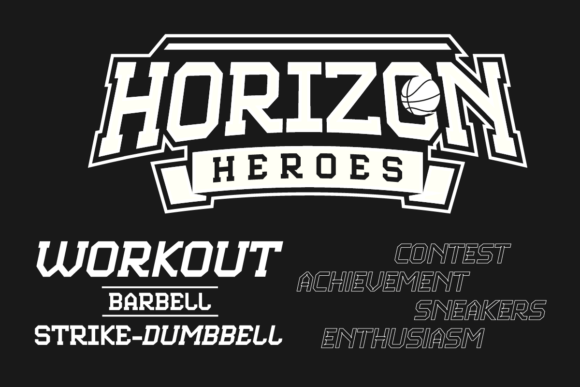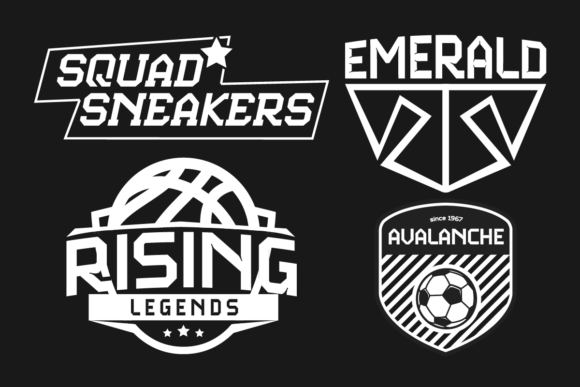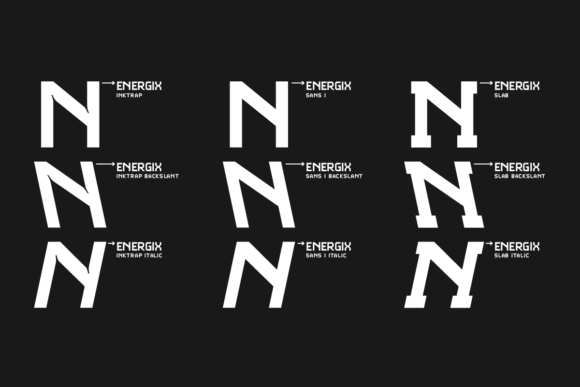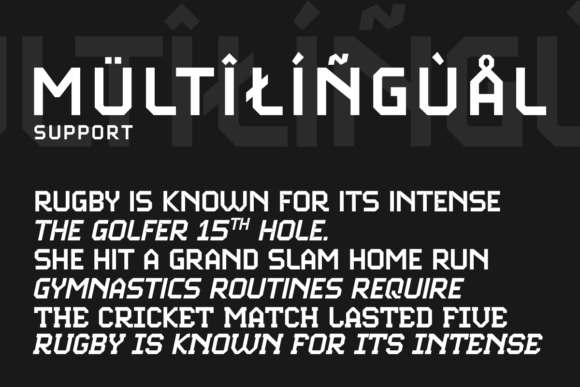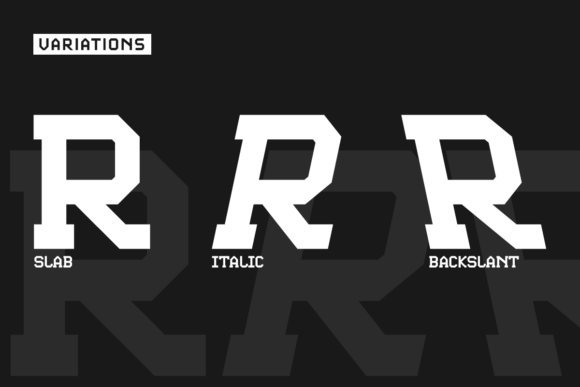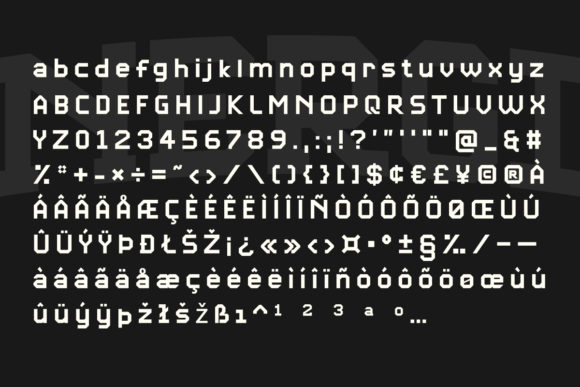
Unleash the Power of Sports Typography with Energix Font
Immerse yourself in the realm of sportive grandeur and amplify your designs with Energix, a font that encapsulates the verve and zeal of athletics. In the world of design, typography plays a crucial role in conveying the message and tone of a project. When it comes to sports-related designs, a font that exudes energy, dynamism, and power is essential. This is where Energix comes into play, a game-changing font that embodies the spirit of sporting competition.
The Essence of Energix
Energix exemplifies power and dynamism with its assertive strokes and vivacious design, crafting an essence of fervor and delivery that’s synonymous with the arena of sporting competition. The font’s design is carefully crafted to evoke the emotions and excitement associated with sports, making it an ideal choice for designers and crafters working on sports-related projects.
A Diverse Toolkit for Creative Ventures
One of the standout features of Energix is its versatility. The font comes in nine unique styles, ranging from regular and italic to bold and extended variations. This diverse range of styles makes Energix a valuable toolkit for creative ventures, allowing designers to experiment and find the perfect fit for their projects. Whether you’re working on a sports poster, team jersey, or athletic event branding, Energix has got you covered.
Endless Possibilities with Alternative Typefaces
Every style in the Energix font comes equipped with a plethora of alternative typefaces, offering designers the freedom to prod, twist, and tweak until they find their perfect match. This feature allows for endless possibilities and flexibility, enabling designers to push the boundaries of their creativity.
Your Ultimate Design Ally
Energix stands tall as your ultimate design ally, whether you’re working in the digital domain or traditional print. The font’s sturdy appeal and components inspired by the world of sports make it an excellent choice for a wide range of applications. From sports posters and team jerseys to athletic event branding and more, Energix infuses a dash of vitality into any project.
Crafting the Spirit of Teamwork and Competition
Energix is especially befitting for sports posters, team jerseys, and athletic event branding, making the spirit of teamwork and competition shine through. The font’s dynamic design and assertive strokes evoke the emotions and excitement associated with sports, allowing designers to create visually stunning and impactful designs.
- 9 unique styles, including regular, italic, bold, and extended variations
- Alternative typefaces for endless possibilities and flexibility
- Sturdy appeal and components inspired by the world of sports
- Ideal for sports posters, team jerseys, athletic event branding, and more
- Suitable for both digital and print applications
| Font Name | Energix Font |
| Author | firstype studio |
In conclusion, Energix is a game-changing font that embodies the spirit of sporting competition. With its assertive strokes, vivacious design, and diverse range of styles, Energix is the ultimate design ally for any sports-related project. Whether you’re a designer, crafter, or simply someone looking to add a dash of vitality to your project, Energix is an excellent choice. So why wait? Unleash the power of sports typography with Energix Font and take your designs to the next level!